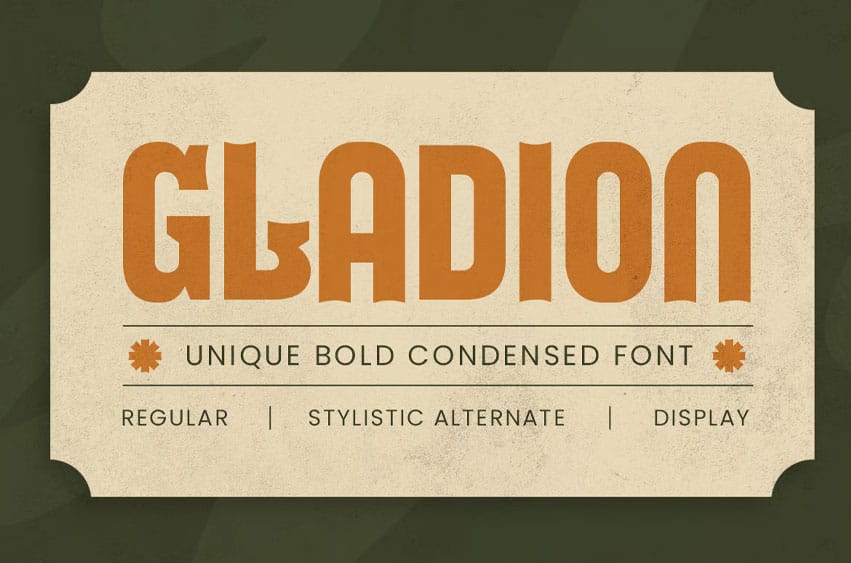
Gladion Font is a unique, bold, condensed font crafted to stand out with confidence. Designed with high-impact visuals in mind, its tall structure and tight spacing make it perfect for attention-grabbing headlines, bold branding, and editorial statements.
Whether you’re creating a sports logo, streetwear label, magazine title, or a music cover, GLADION delivers a fearless tone through its bold strokes and compact style. This font is all about clarity, character, and commanding presence. Its distinctive forms offer just enough uniqueness without compromising legibility, making GLADION a smart choice for both modern and vintage-inspired layouts.
GLADION – Bold Condensed Font Features:
- Bold & compact condensed letterforms
- Distinctive style with strong visual weight
- Ideal for logos, posters, packaging, and more
Let your visuals roar with GLADION – the bold, condensed font that makes every word command attention.